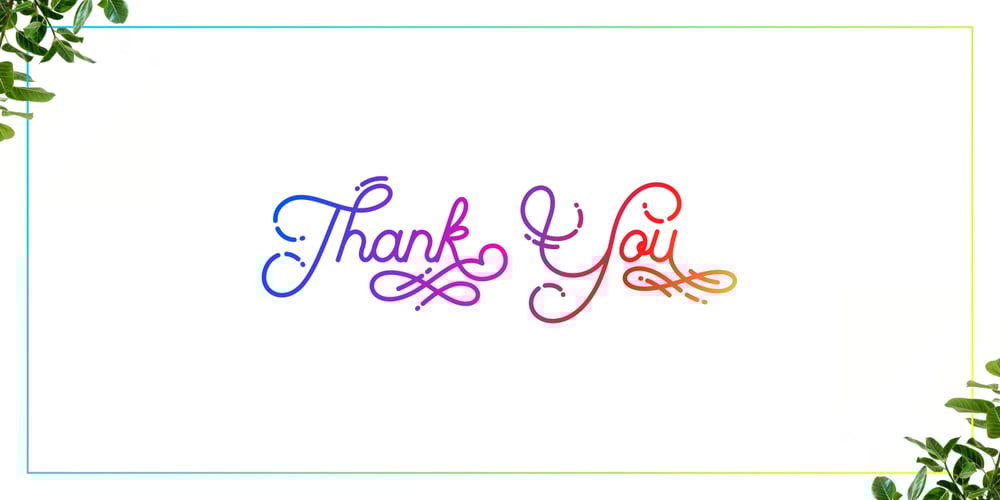
The Beautyline Font Family was designed by Putra Novembria Candra Kusuma and published by Putracetol. The Beautyline contains 1 styles and family package options. The Beautyline is a modern monoline typeface. Like the font name, this font is made of beautiful lines with additional lines in some characters which makes this font more beautiful. It’s perfect for branding, logos, wedding designs, social media posts, advertisements, invitations, stationery and any projects. The Beautyline comes with uppercase, lowercase, numerals, punctuation and many variations on each character, including OpenType alternates and common ligatures to let you customize your designs.